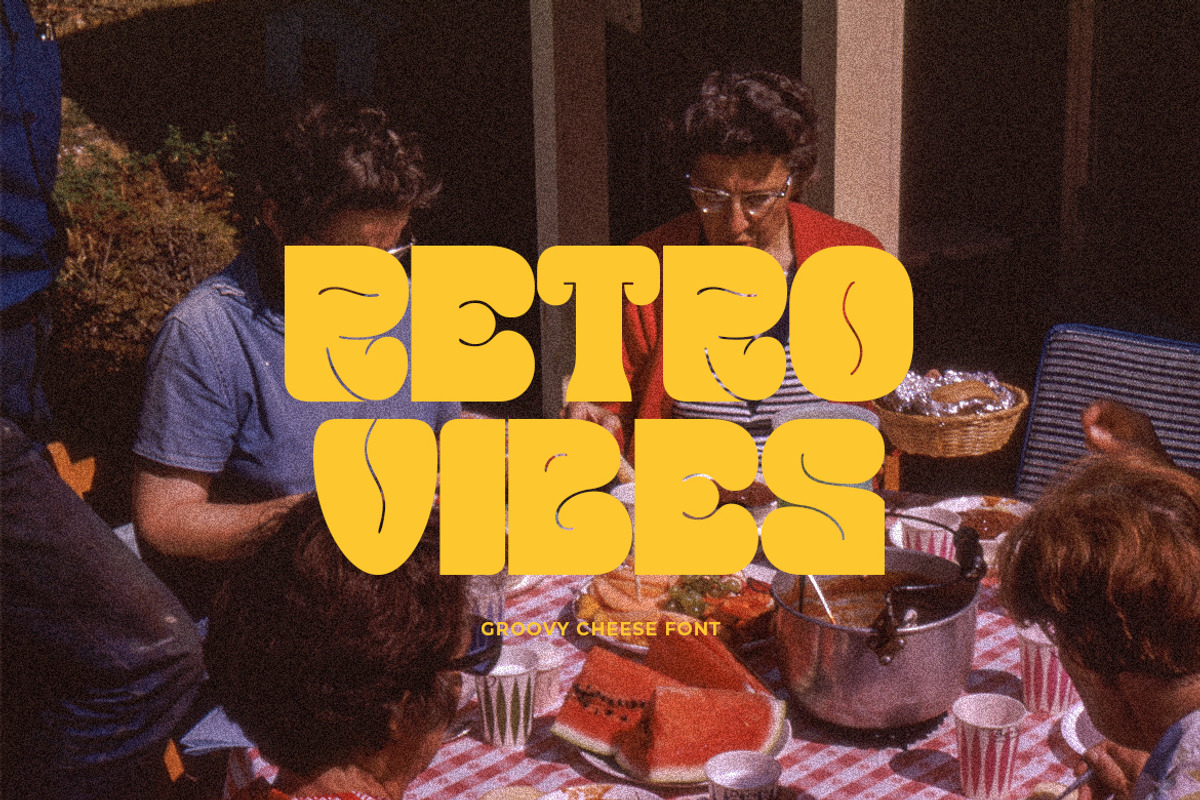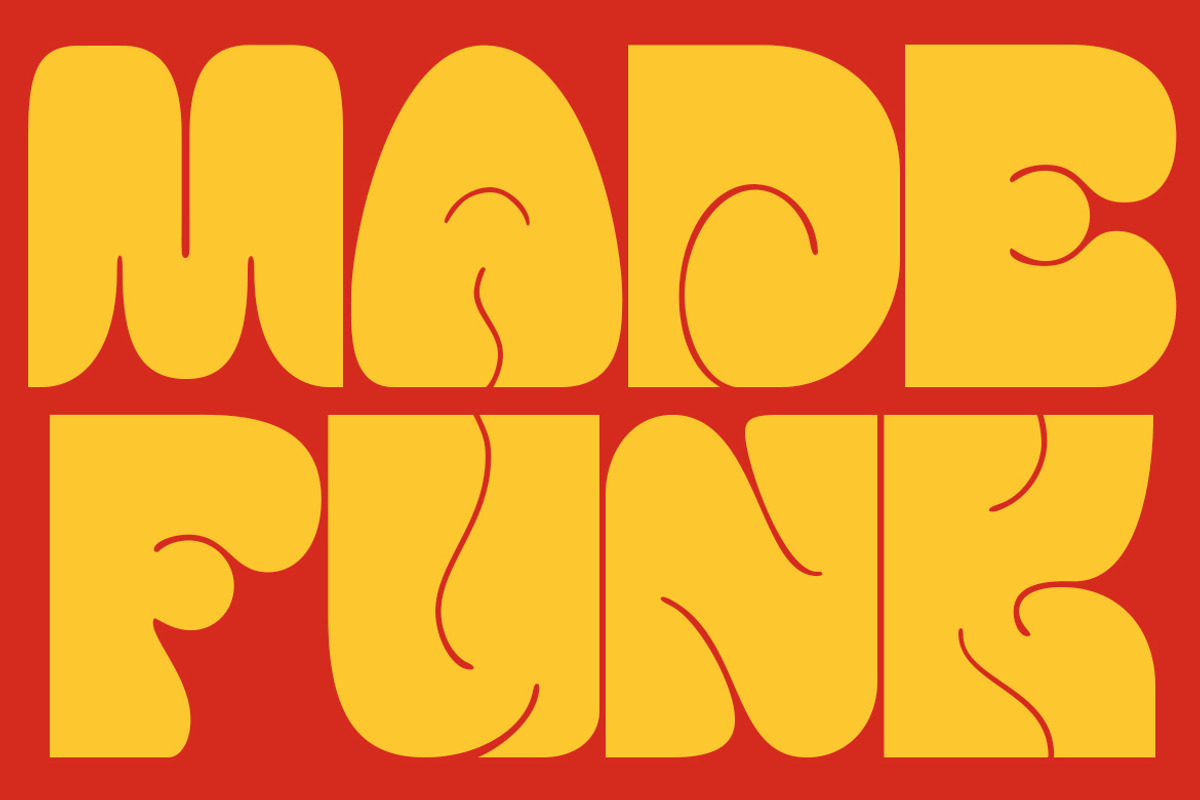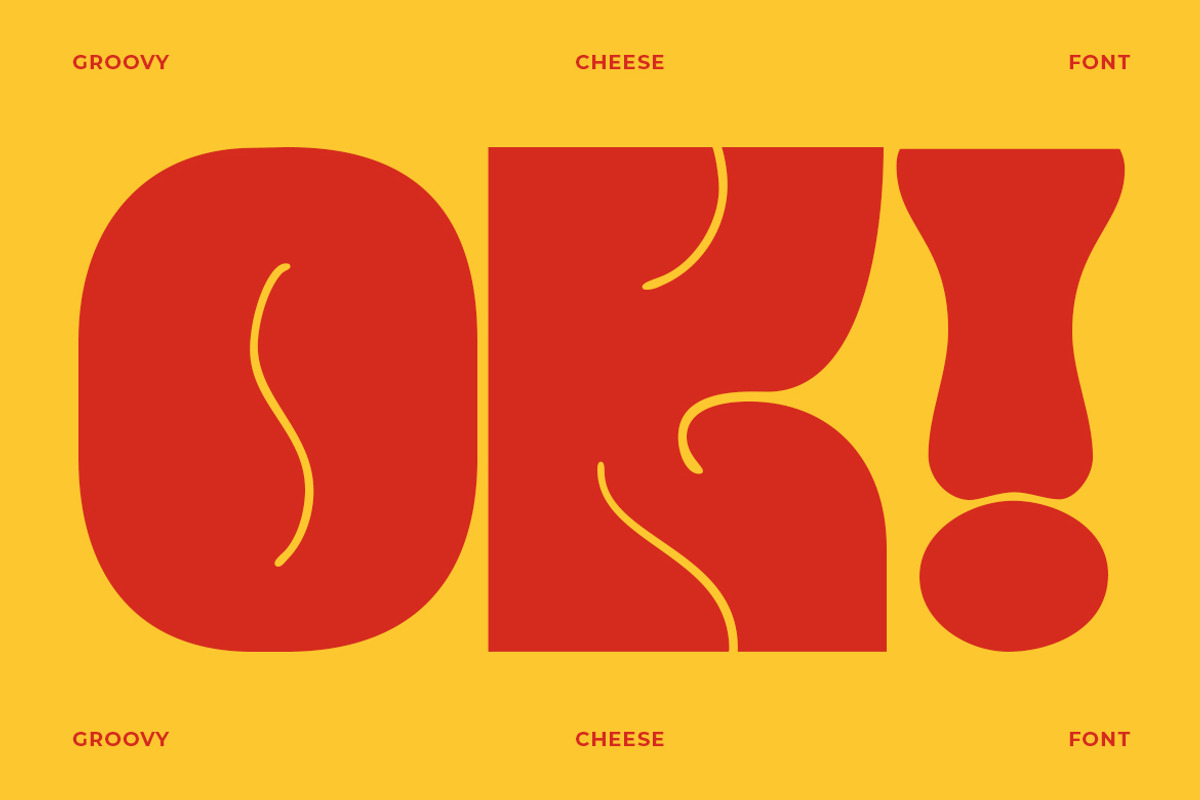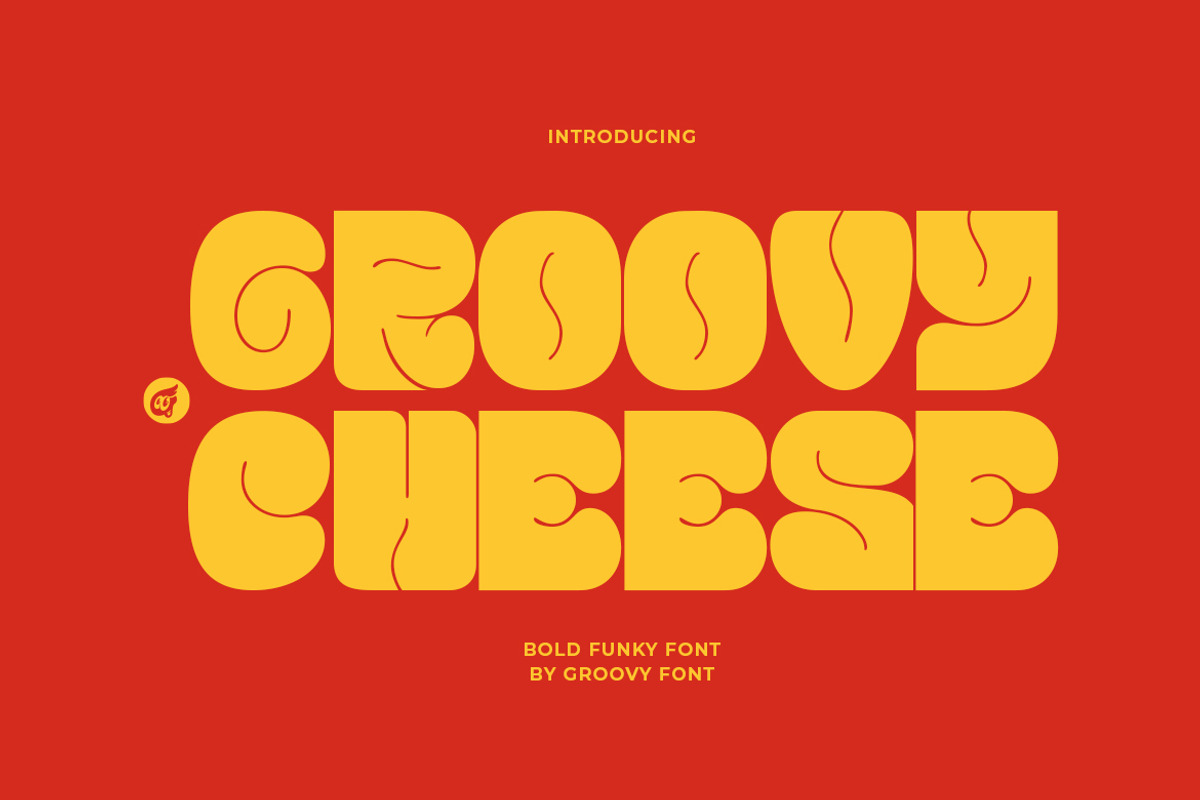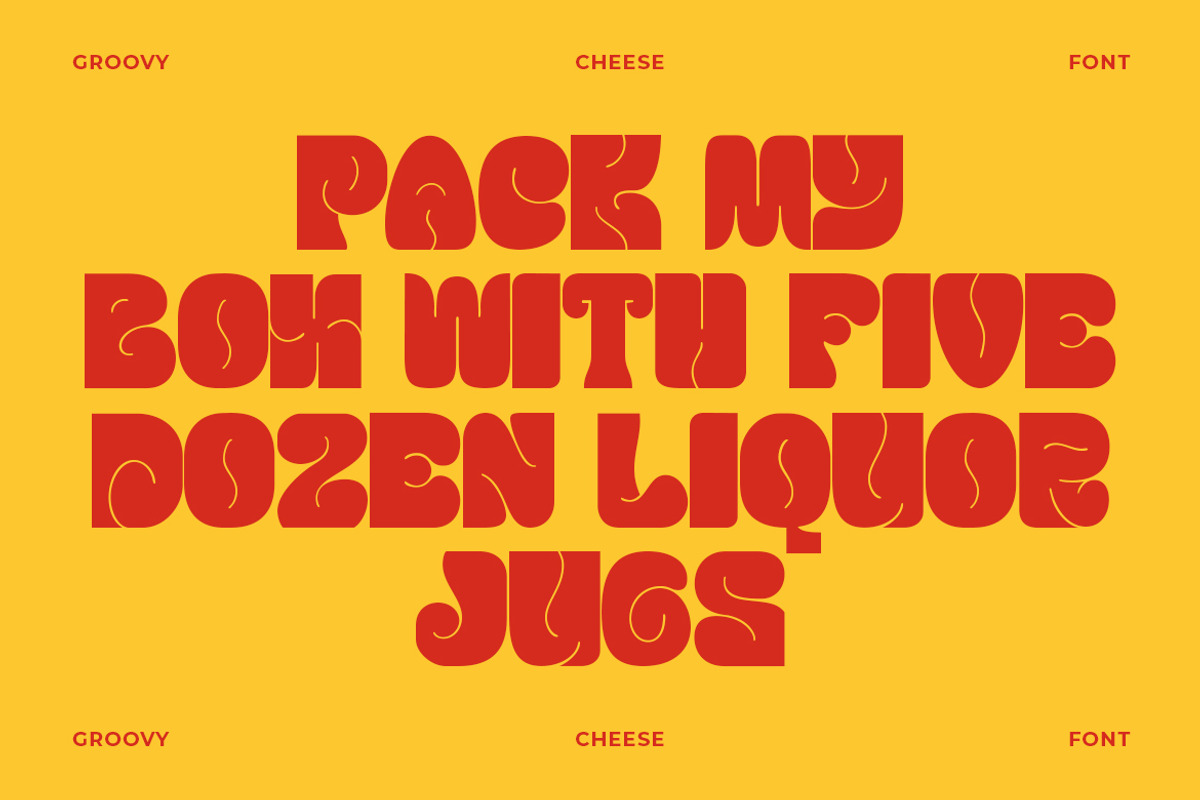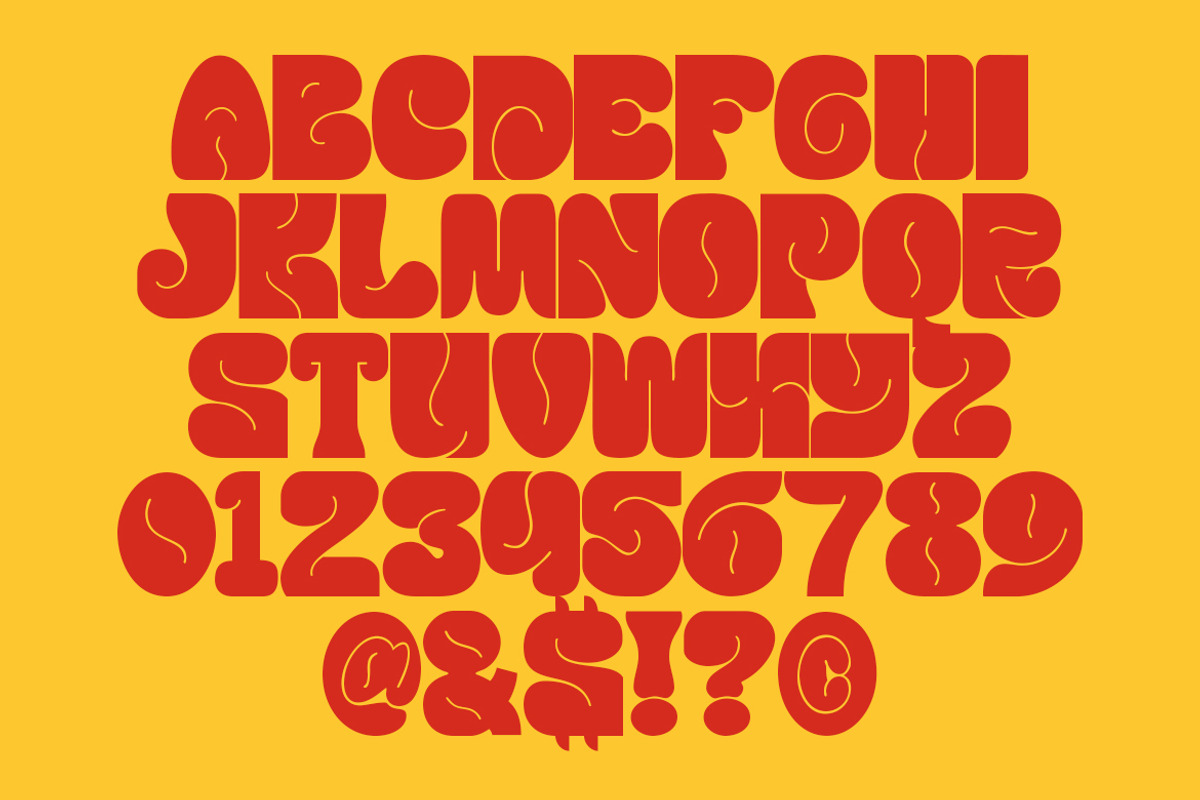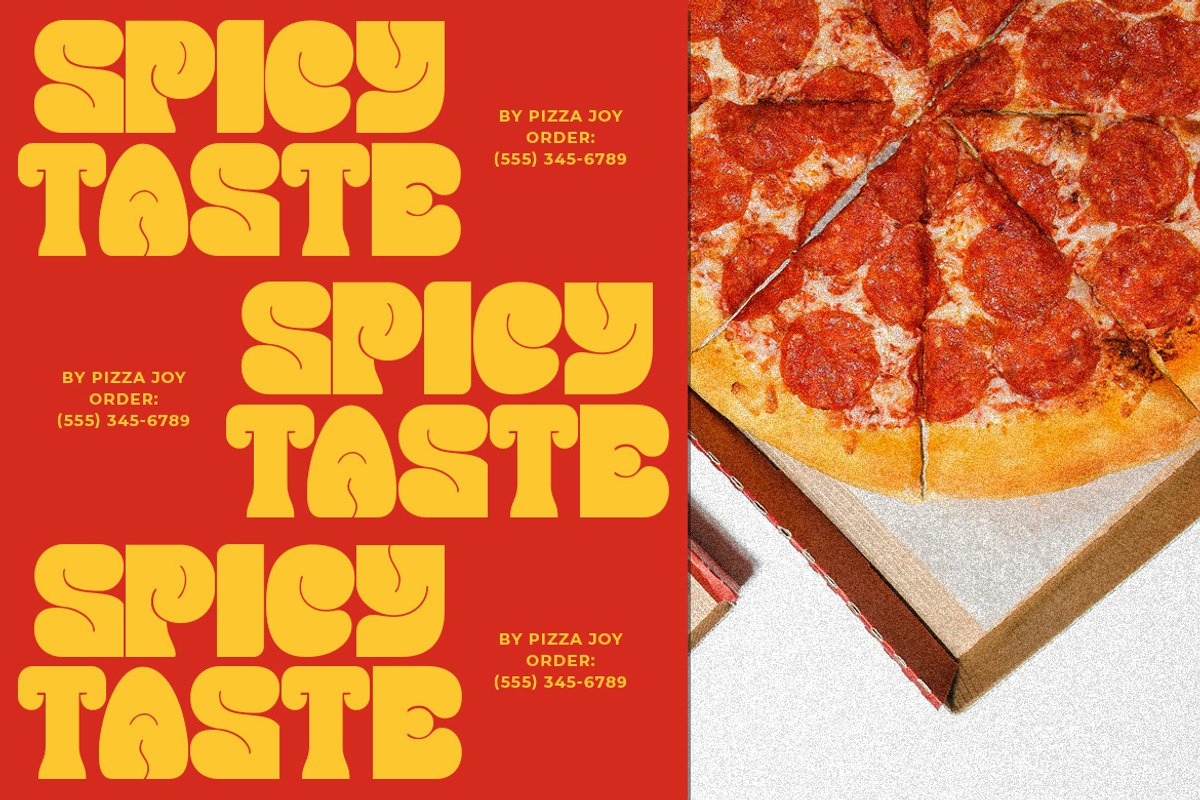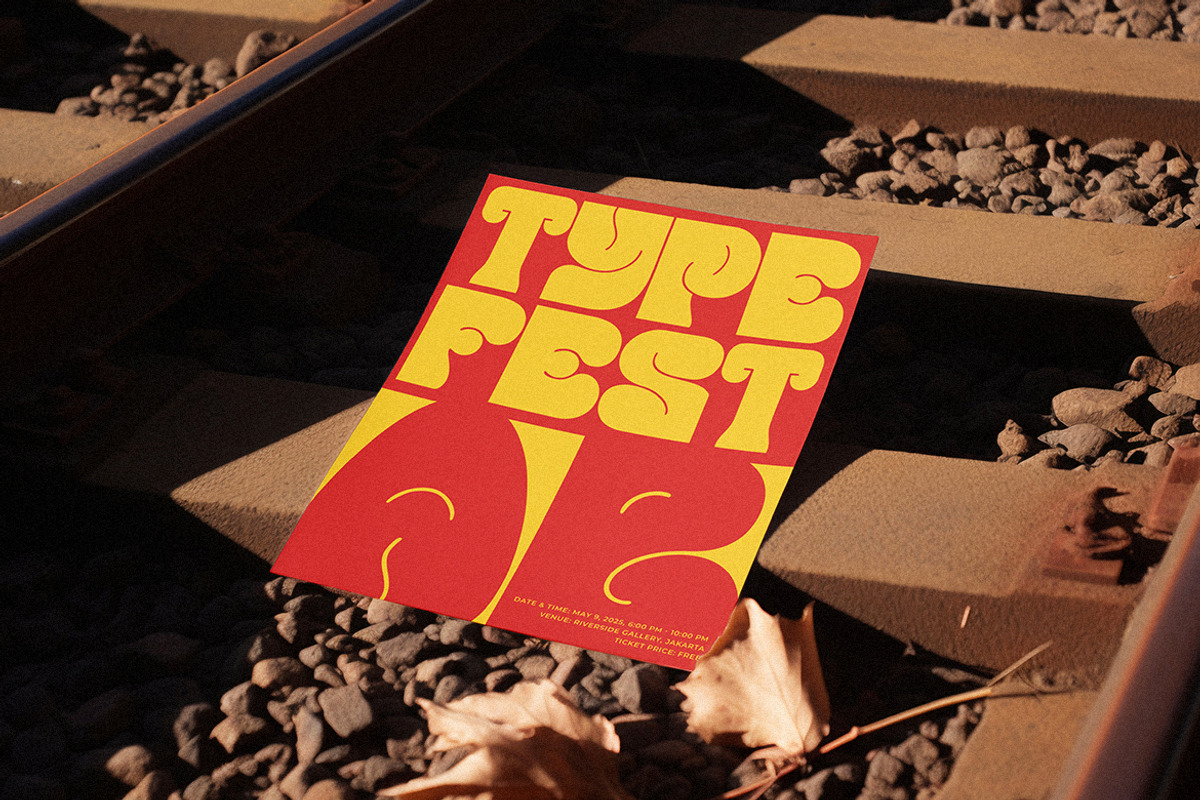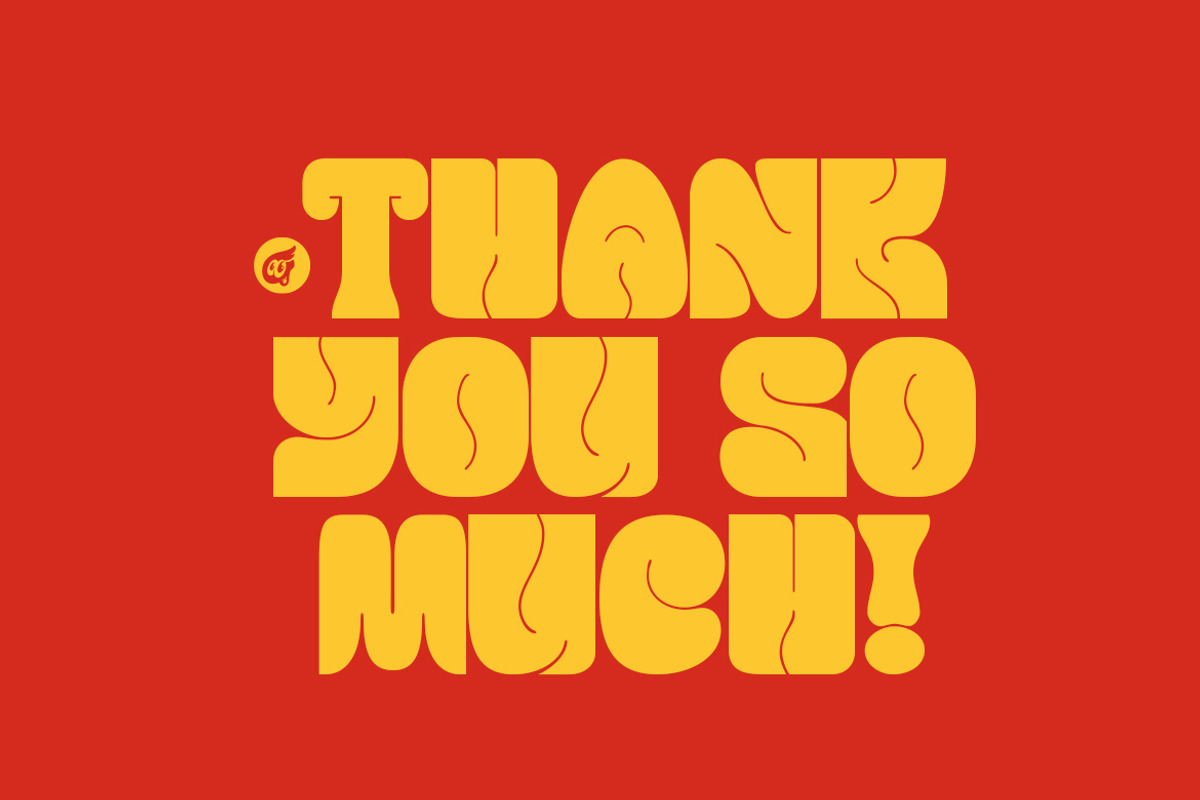
GF Cheese - Bold Funky Font
Groovy Cheese is a bold funky font characterized by its fat appearance and smooth curves.
The thick and rounded design of this font exudes a sense of fun and playfulness, making it a standout choice for projects that require a lively and energetic vibe.
The smooth curves add a touch of whimsy and personality to the text, lending a distinct and modern flair to any design.